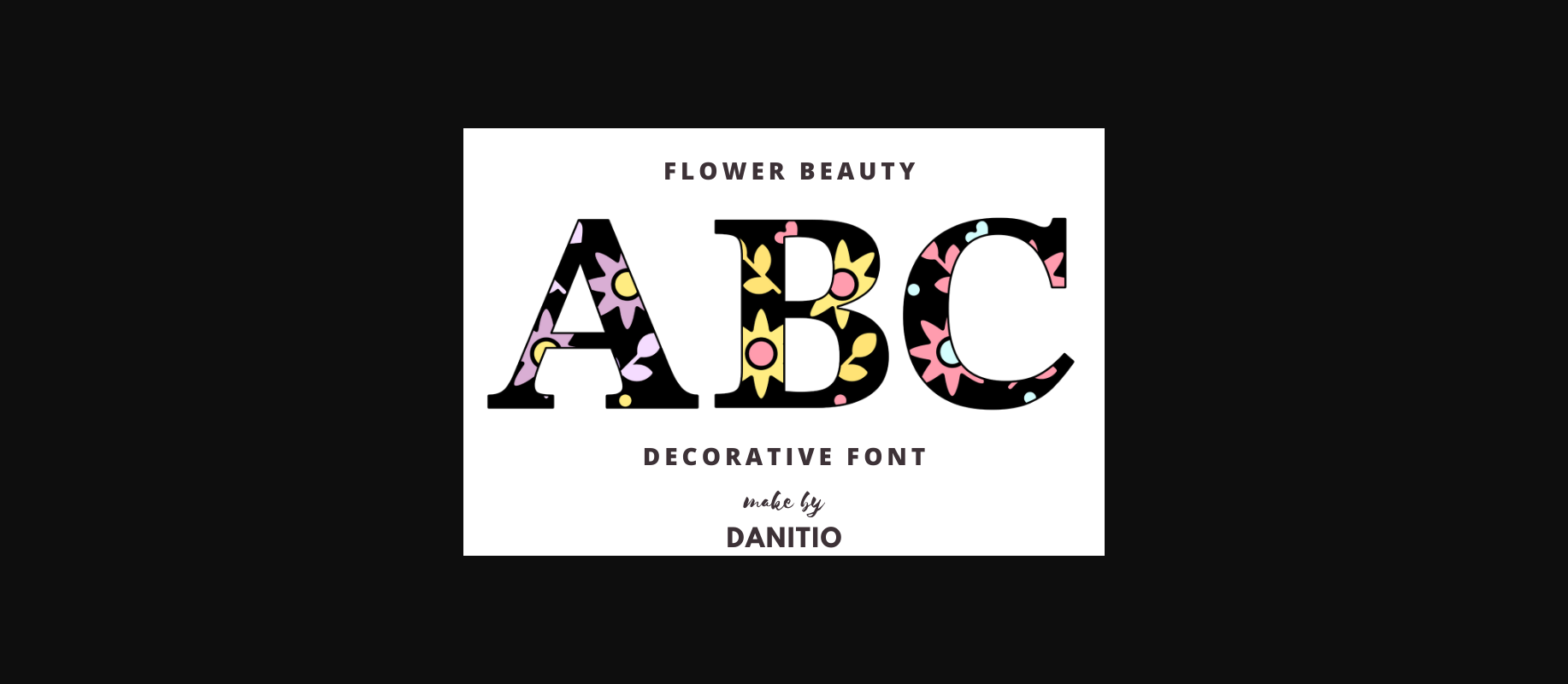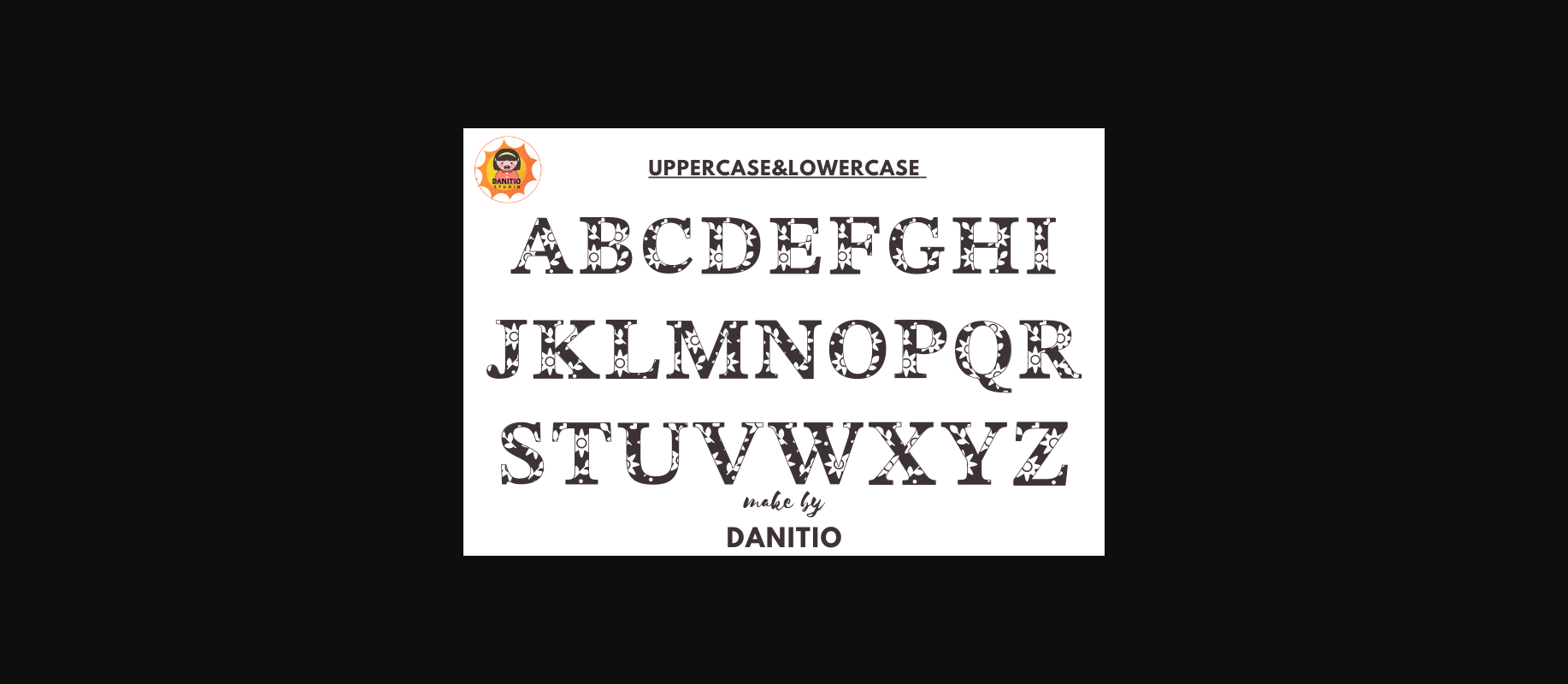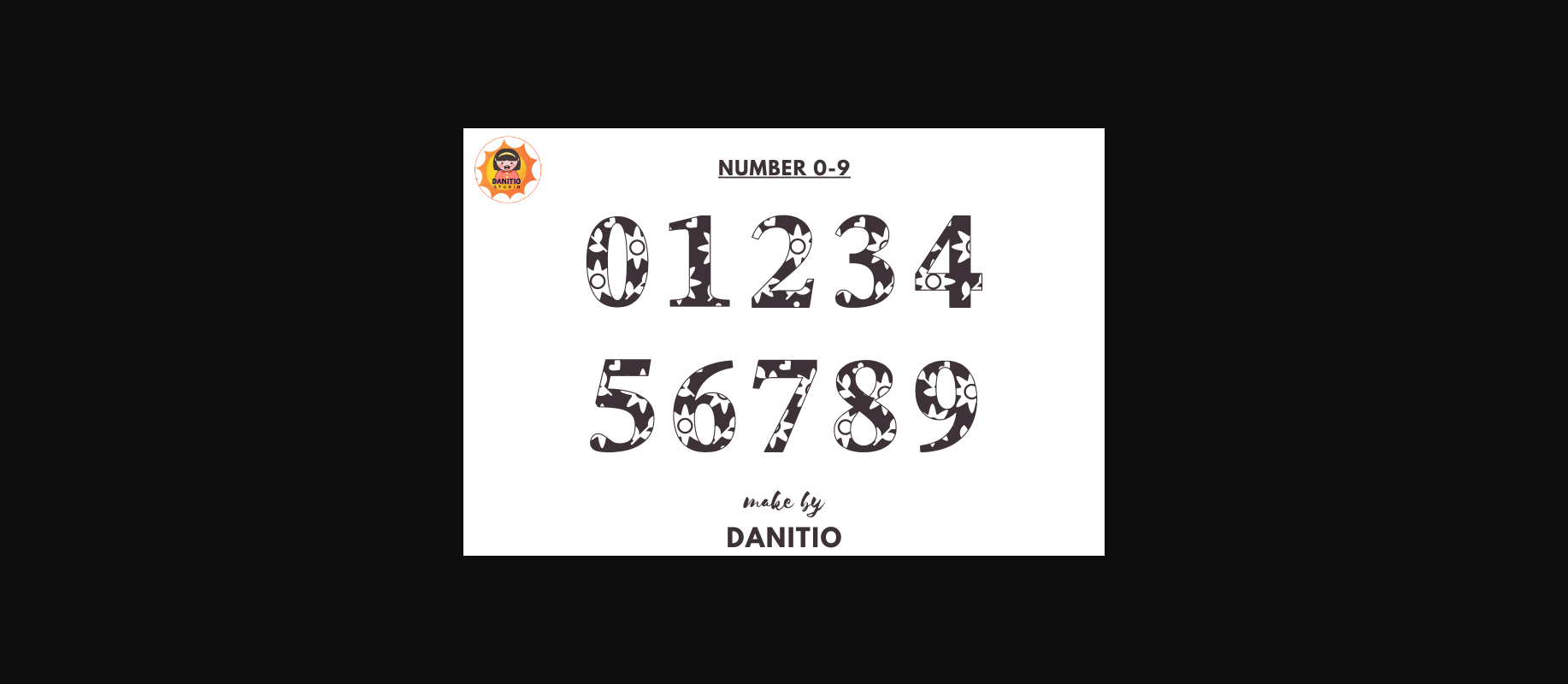
About Flower Beauty Font
Flower Beauty is a delightful combination of charm and eccentricity. Intricate floral patterns combine to bring a touch of romance to any design. Suitable for personal stationery wedding invitation cards or decorative work, the Bloom Monogram infuses every character with blooming elegance and elegance.